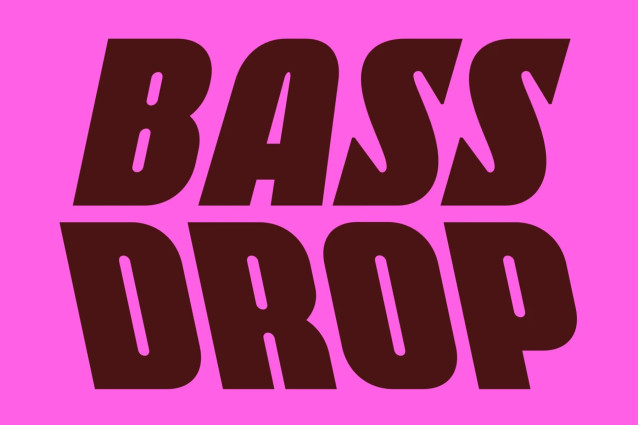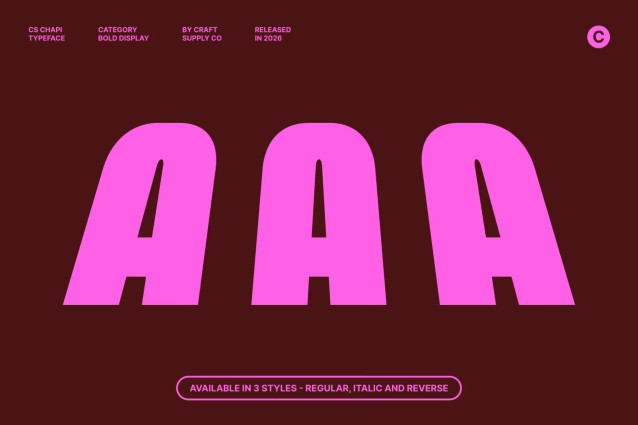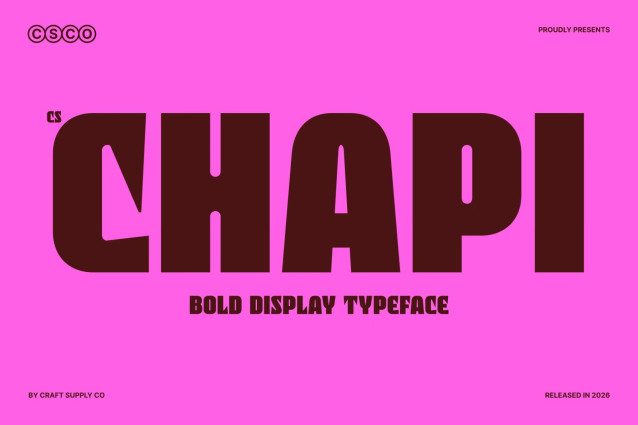
CS Chapi – Bold Chunky Display Font with Playful Charm
Bold Display Font with Strong Personality
This is a bold, chunky display font designed to bring confidence, energy, and character to every design. Featuring thick strokes, blocky letterforms, and a modern structure, this typeface creates an eye-catching visual presence that feels powerful yet approachable. It is crafted for designers who want typography that stands out with both bold impact and playful appeal.
Chunky Shapes with Fun Character
The defining feature of this font lies in its strong, oversized letterforms that instantly command attention. While its bold construction delivers strength and visibility, subtle playful details add warmth and personality, creating a balanced aesthetic that feels lively and engaging. This combination makes the font both memorable and versatile.
Clean Lines with Modern Appeal
This font combines thick strokes with clean, well-structured forms to maintain clarity and readability even at large display sizes. Its contemporary design allows it to fit seamlessly into modern creative projects while retaining a distinctive and friendly character. The result is a typeface that feels fresh, energetic, and visually impactful.